Amidst the rapid advancement of the digital era, visual design is no longer mere aesthetic talk. It is the strategic language to represent the direction of a brand’s future. Typography, specifically, becomes the strongest visual element in shaping the desired perception. This is when the use of futuristic display fonts comes into play. They are the visual language for a brand seeking to be progressive, innovative, and ready to face the changes.
Futuristic-styled fonts are not just a design trend; these fonts represent the personality of advanced technology, digital power, and the energy of the future. From tech startups and gaming industries to AI products and metaverse branding, futuristic typography helps build a modern, dynamic, and relevant visual identity.
Thus, this article will provide you the best futuristic display fonts for modern designs, as well as their important role for branding. Make sure to read until the last part and find the best font for your brand identity.
Futuristic display fonts are decorative typography designed to evoke a sense of technology, the future, and visual experimentation. Unlike fonts for body texts that focus on reading comfort, display fonts are specifically created to instantly attract attention as the primary visual element. Their striking look makes the fonts work well for logos, website headlines, digital posters, video titles, packaging, and futuristic branding.
Visually, futuristic display fonts are differentiated by their sharp geometrical shapes, experimental modular design, and sci-fi or cyber aesthetic. Furthermore, these fonts are highly precise, with a solid and progressive appearance. These qualities strongly indicate that the brands adopting this type of font are either technology- and innovation-focused or future-oriented.
In modern branding, futuristic display fonts help create an innovative, advanced, and progressive image. The futuristic aesthetic gives signals that the brands are adaptive in facing changes to maintain relevance in the digital era. That’s why these fonts become a strategic tool for industries like AI, gaming, or Web3 to emphasize their position as brands representing the future.
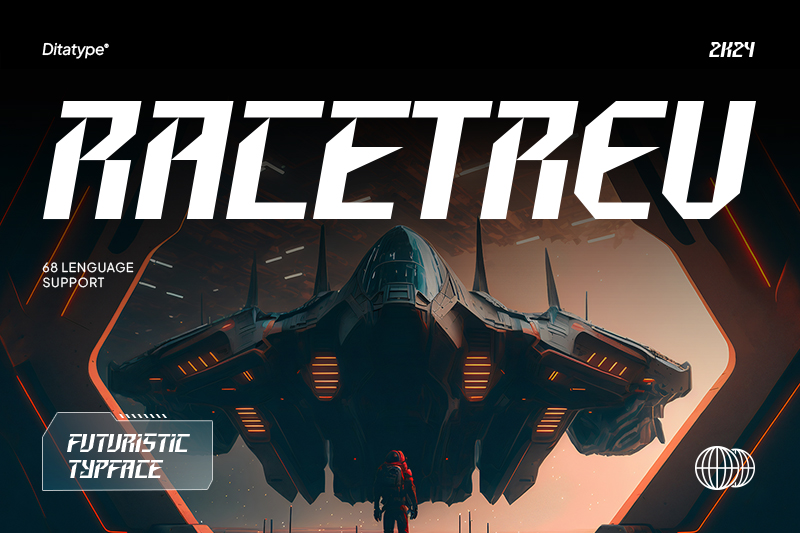
Racetrev is the first font on this list of recommended futuristic display fonts. Its bold uppercase format offers precision and balanced proportion. As a result, this font has a strong, modern, and aggressive vibe. Its dynamic outlines also strengthen its visual traits, giving off a sense of a high-tech environment with sci-fi and cyber aesthetics that greatly appeal. This font is ideal for technology branding, gaming design, digital posters, or other futuristic projects that wish to be visionary leaders.
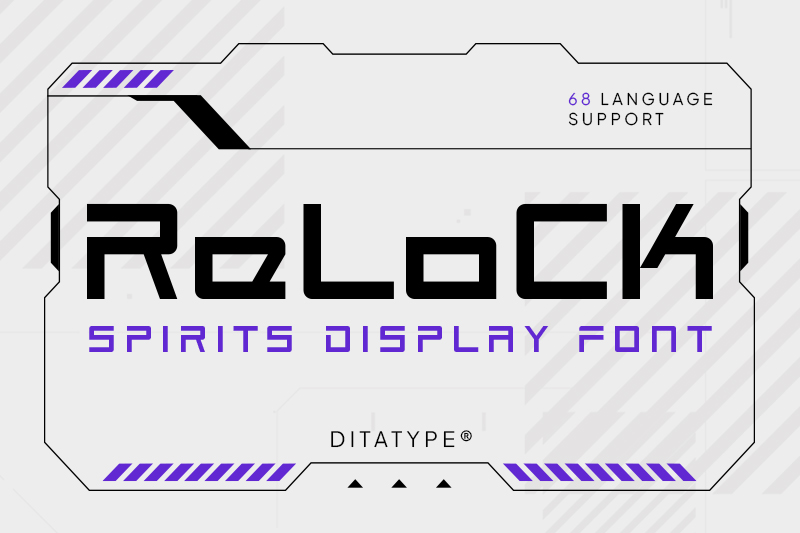
Presenting the sleek style distinctive of futuristic display fonts, Relock is a font with a thin letter structure and geometrically shaped corners, reflecting precision and a high-tech vibe in each of the letters. Its clean, modern, and experimental design creates a strong visual character that retains its elegance. Relock is an ideal font for startup websites, futuristic UI design, tech-related posters, and other sci-fi-themed projects.
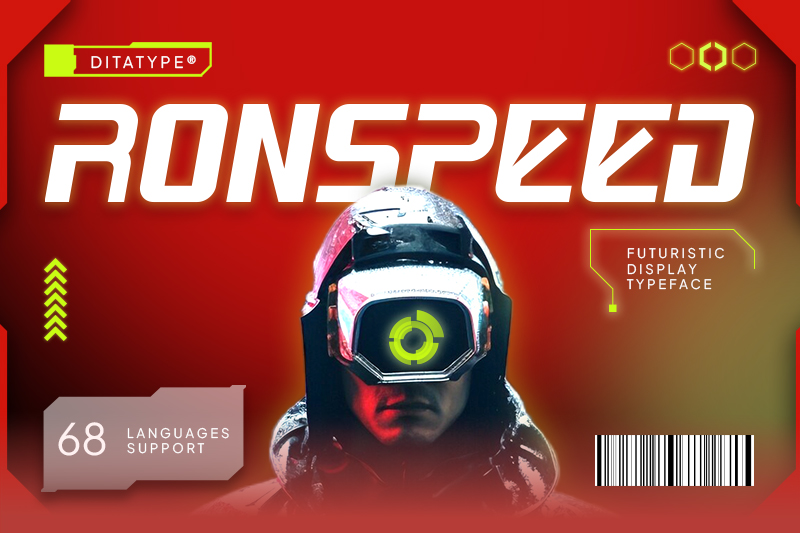
Ronspeed’s robust uppercase structure and pointed edges, which are common in futuristic display fonts, give it a dynamic yet aggressive appearance. Ronspeed is solidly created with bold and modular elements, allowing it to smoothly adapt to technology branding, gaming posters, digital headlines, and other cutting-edge designs. Furthermore, its geometric elements and diagonal cuts create a visual rhythm that conveys a modern and powerful high-tech image.
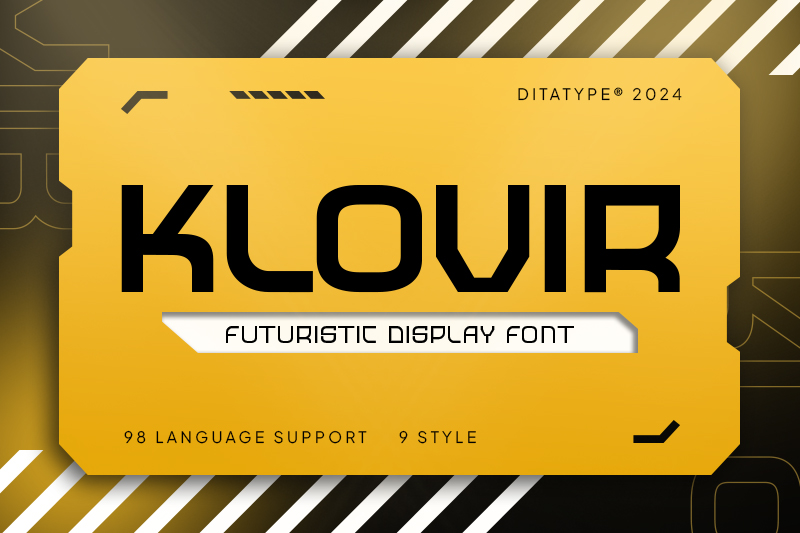
Sleek and modern, Klovir is one of the most recommended futuristic display fonts that is functional with its uppercase format, precise in structure, and high-tech looking. With solid geometric shapes and balanced letter proportions, Klovir offers a strong, consistent look that remains readable across various sizes. This font’s details highlight the precise lines and minimalist touches, shaping a unique visual identity that is recognizable. The font’s futuristic style and incredible flexibility make Klovir ideal for digital branding, headlines for tech-themed articles, and other modern creative projects.
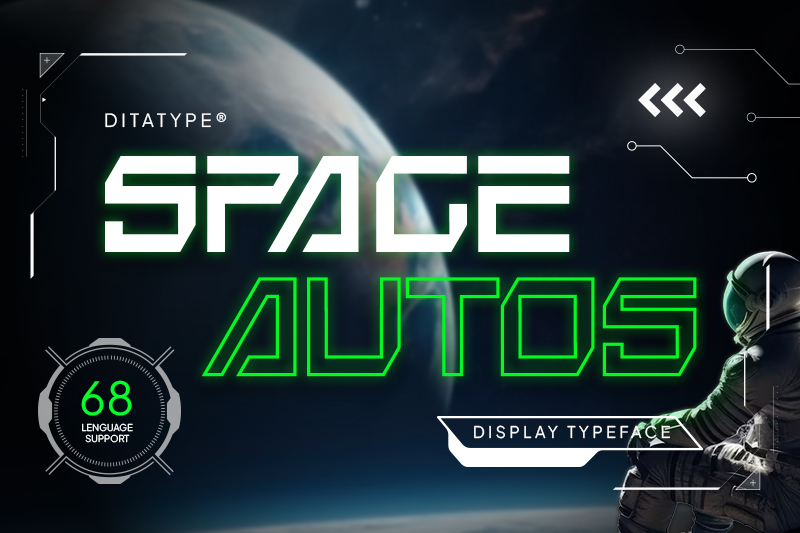
Next, we have Space Autos, one of the futuristic display fonts sleekly designed to create a modern and daring look. Fully developed with an all-cap letter format, this properly balanced font combines sharp angles with precise lines, inspired by a spaceship structure. As a result, Space Autos have a dynamic look with a strong personality, making it perfect for future-oriented designs like startups, tech websites, and gaming industries.
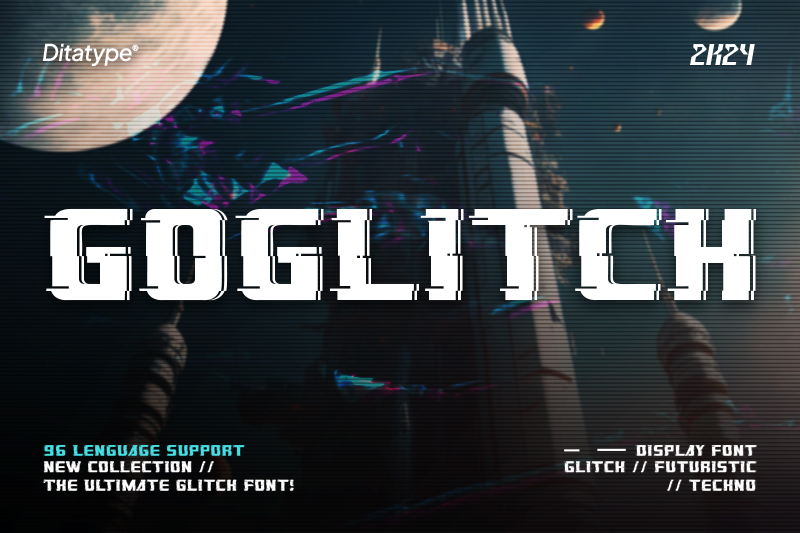
Having a distinctive digital glitch effect, Goglitch provides a futuristic nuance with a cyberpunk and techno touch that is full of energy. Designed fully with an uppercase format with thick weight, sharp corners, and neon-styled distortion details, Goglitch presents a high-tech visual character that is strong yet experimental. Goglitch works ideally for sci-fi designs, gaming branding, and more.
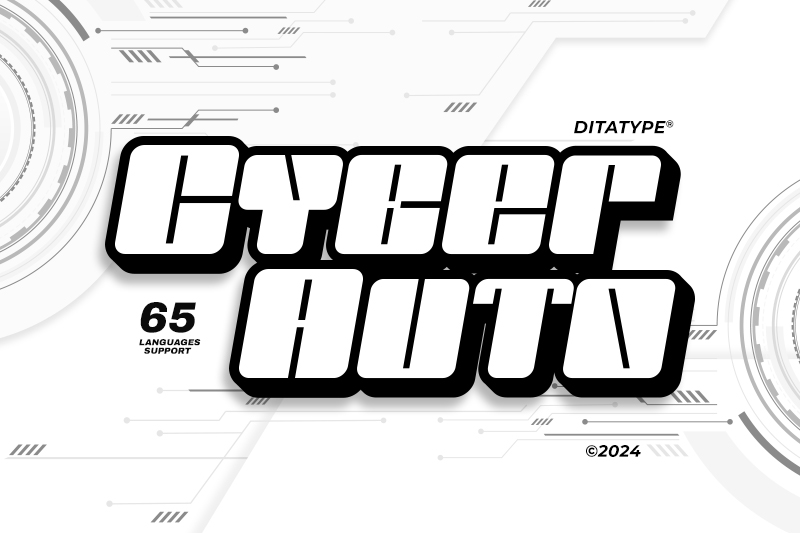
Using futuristic fonts in startups, AI projects, gaming design, or digital products conveys a forward-thinking brand image. Use futuristic display fonts now and enhance your design to make an unforgettable visual experience.